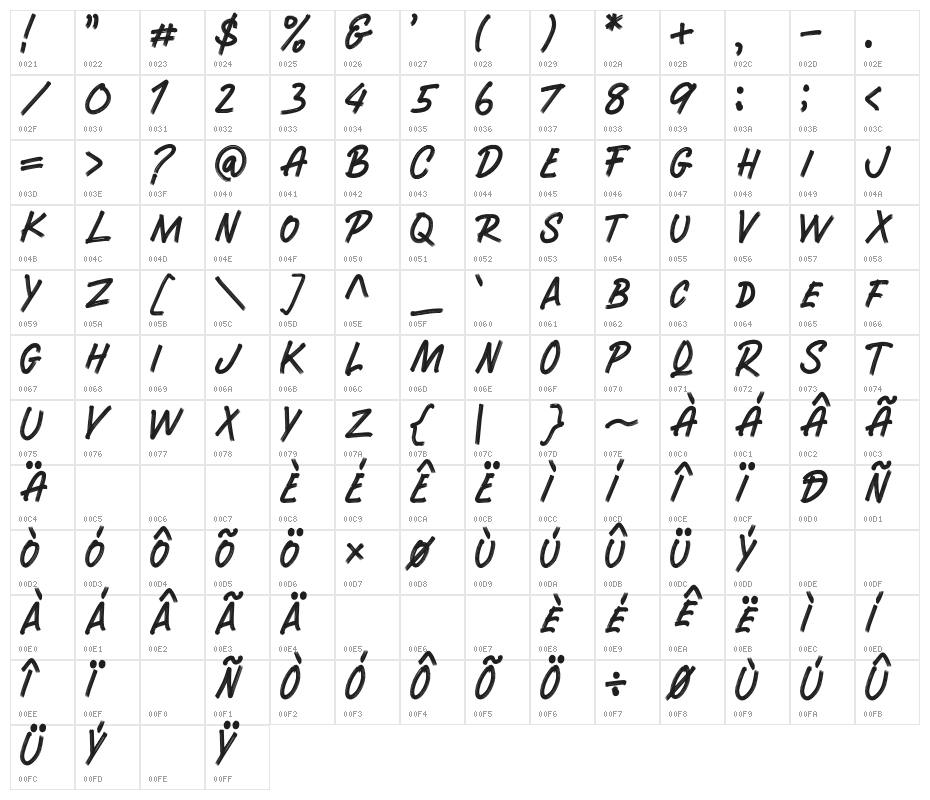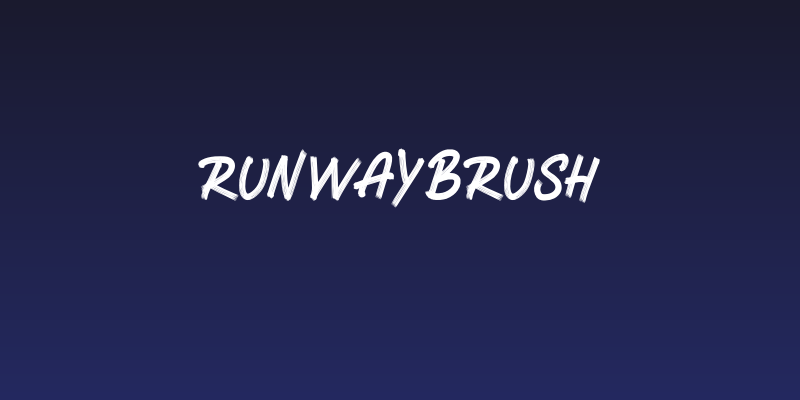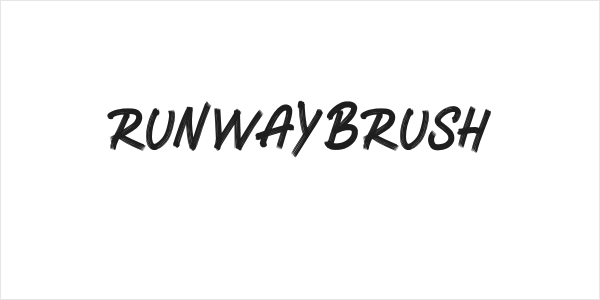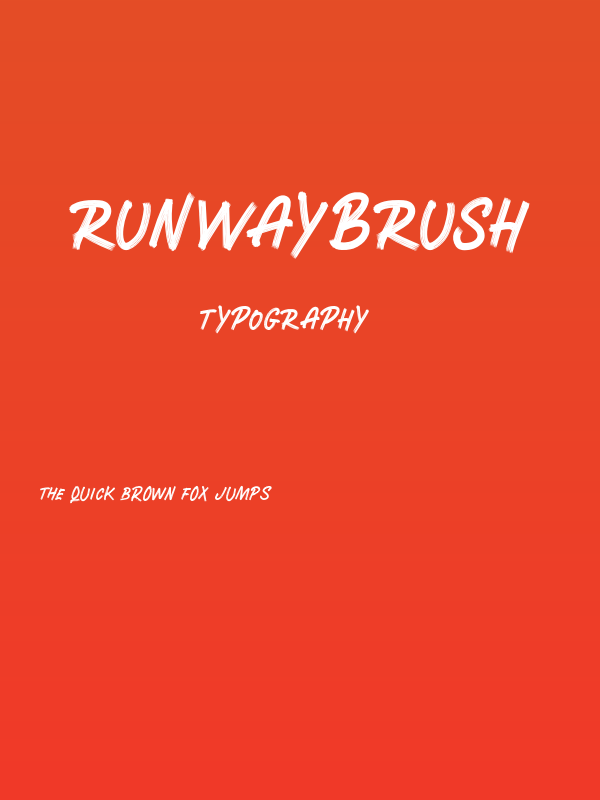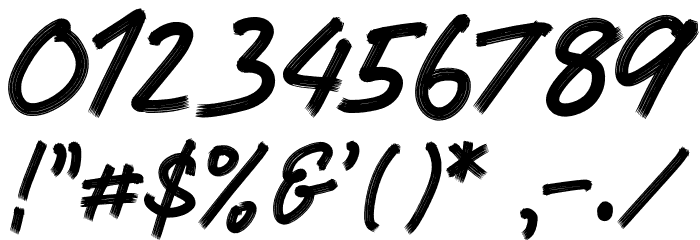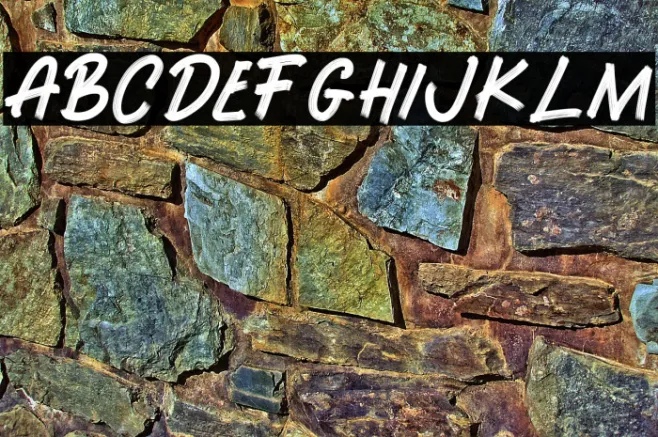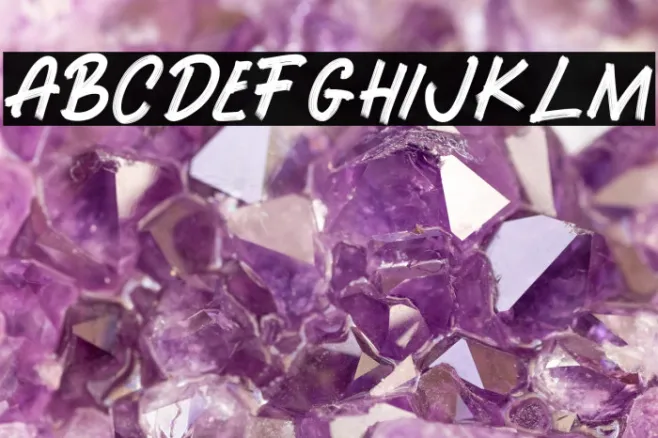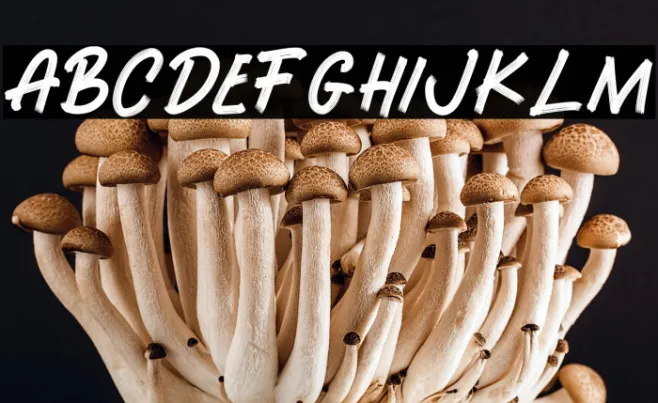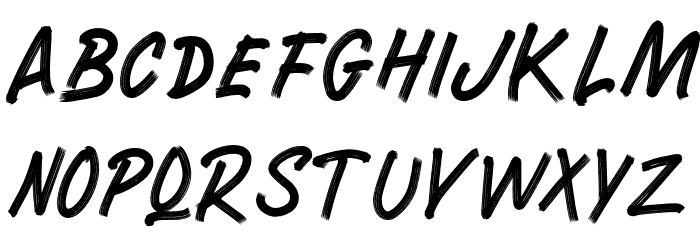
RUNWAYBRUSH Font
RUNWAYBRUSH Description
This font features a bold, energetic brush style that exudes a sense of movement and dynamism. The strokes are thick and varied, giving it a hand-painted appearance that is both artistic and expressive. Each character is crafted with a sense of spontaneity, making it ideal for designs that require a personal touch. The uppercase and lowercase letters maintain a consistent style, with a slight slant that adds to the overall fluidity. The numerals and special characters are equally bold, ensuring they stand out in any composition. This font is perfect for projects that aim to capture attention and convey a lively, creative vibe.